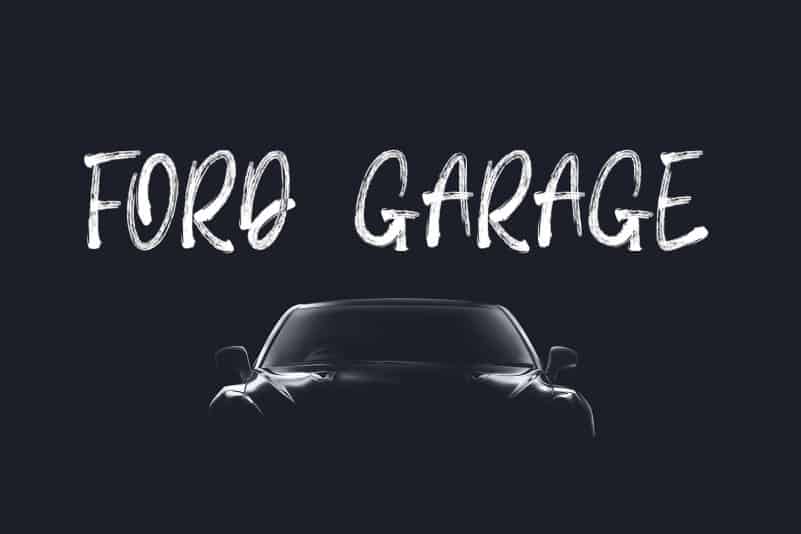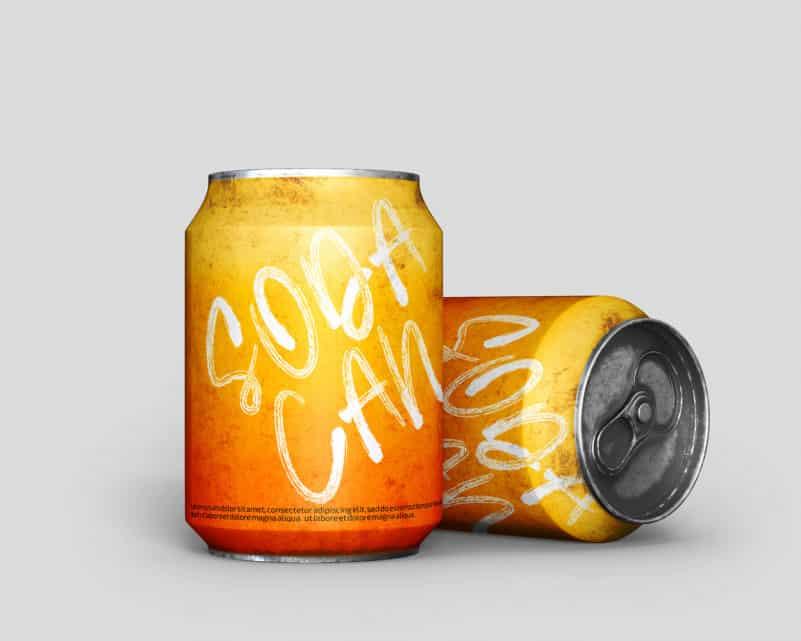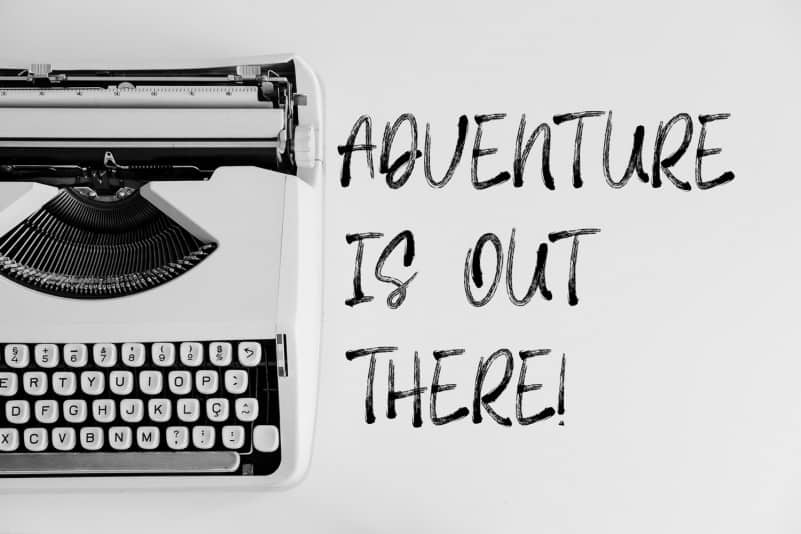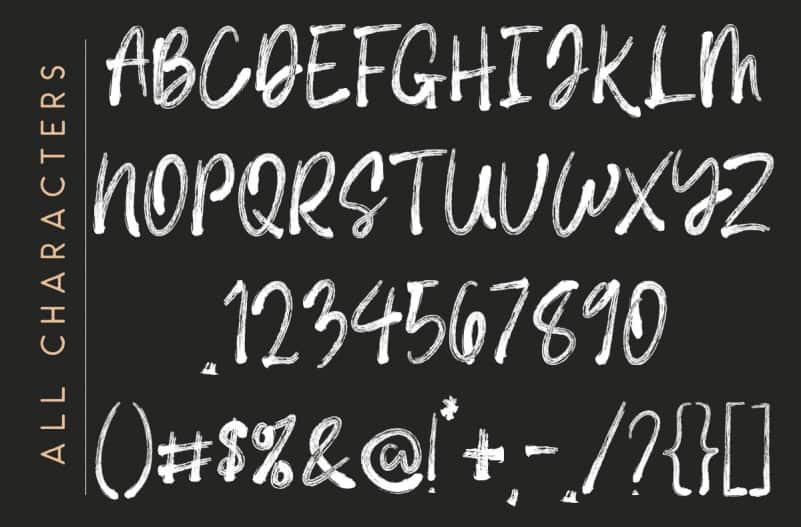
Introducing Royal Textured Brush Font. It’s a handwritten brush font, it’s a supercharged, street-wise brush font bursting with energy. With extra attention to quick strokes and sharp details.
Suitable for use in title design as well as apparel, invitations, books tittle, stationery design, quotes, branding, logos, greeting card, t-shirt, packaging design, poster and more.
Royal Brush